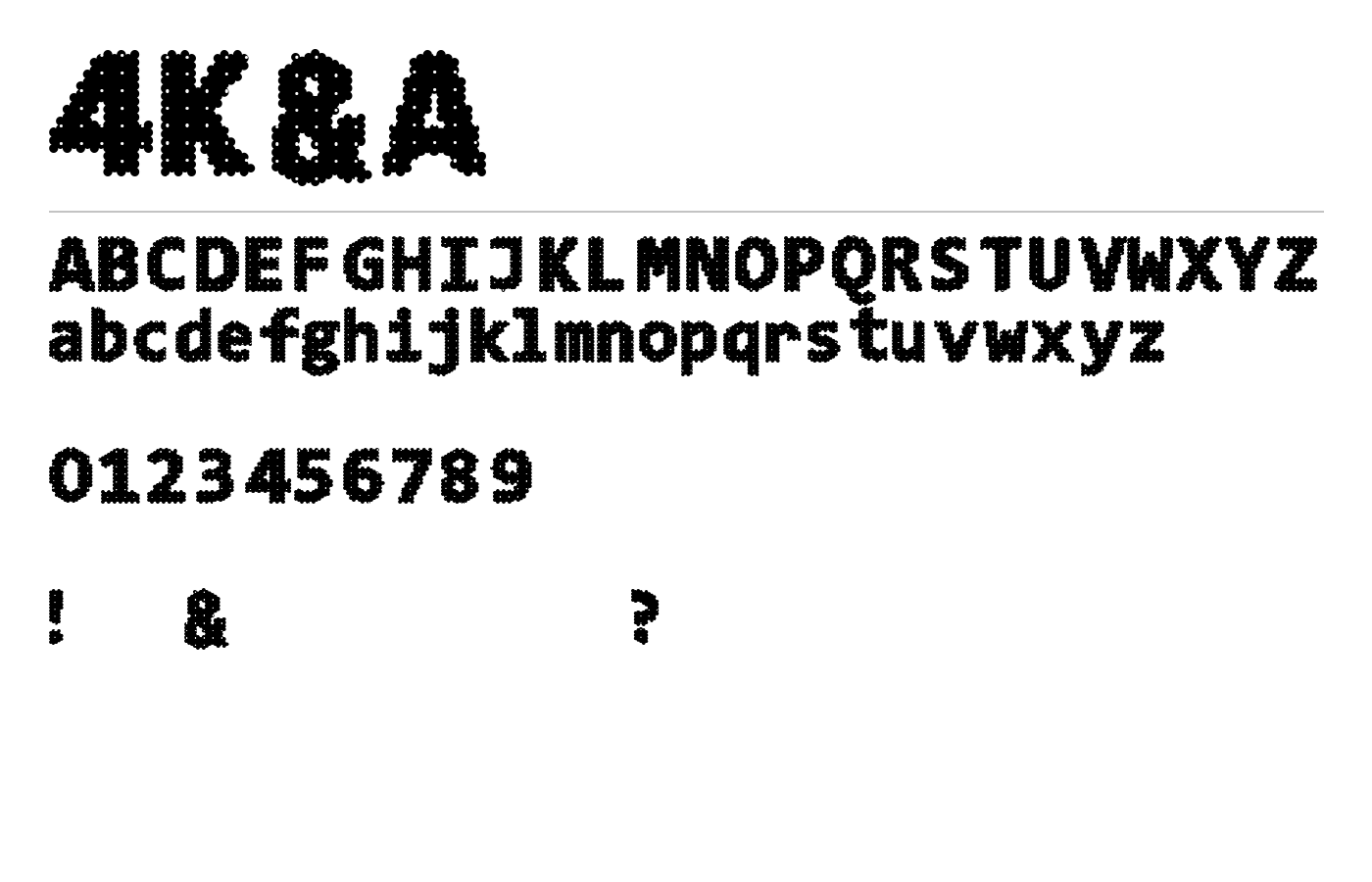
4K&A is a bold, sans serif font characterized by its unique, playful texture resembling clustered dots that form each letter, giving it a distinct, tactile appearance. This font combines a strong, compact structure with an informal, creative feel, making it perfect for eye-catching headlines, logos, and projects that aim to convey fun and originality. Its quirky and approachable style works well for brands and designs seeking a modern yet unconventional touch.
4K&A Font
About 4K&A Font